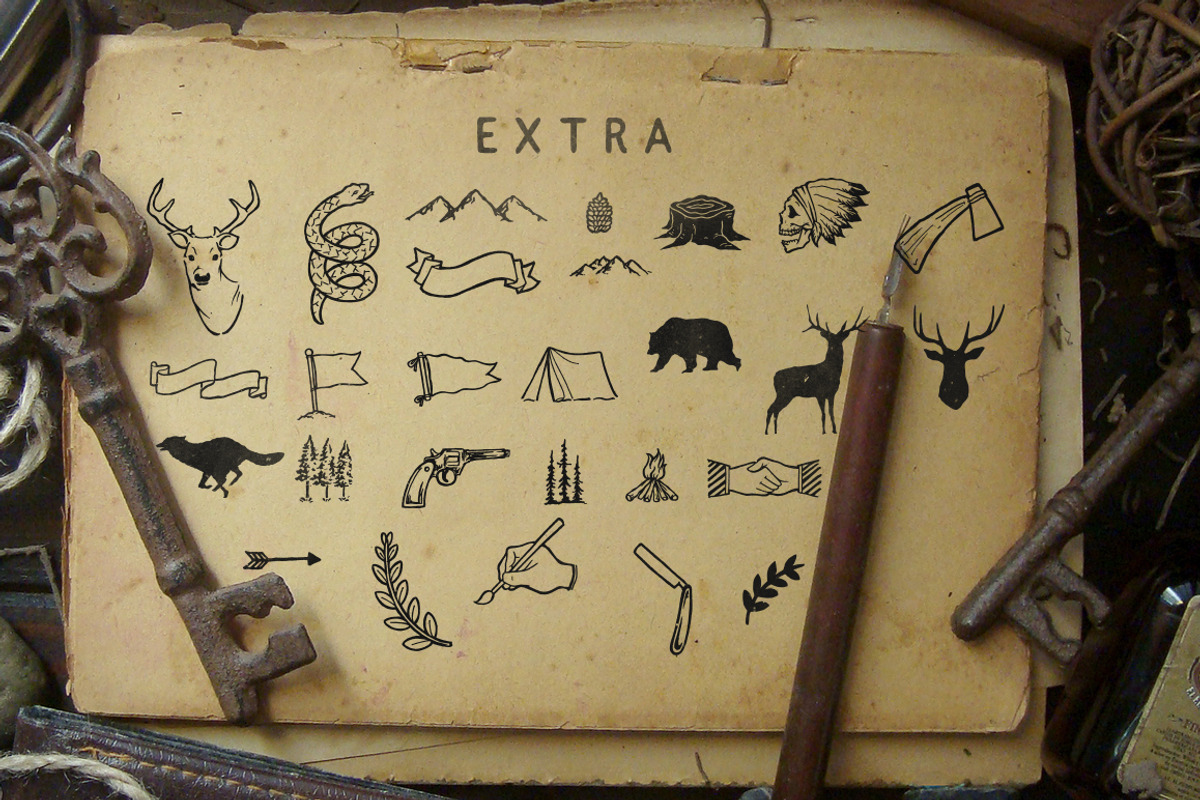
Himalaya Set Type
Himalaya set type is a vintage inspired font duo that includes one script and one sans serif font. The script and sans serif are both hand-drawn with a rough edge.
Himalaya set type comes with lower case y, g and tail alternates included in the font's glyphs. These alternates will give your designs an extra flair and uniqueness.
Himalaya set type is an experimental and versatile font. Suitable for digital lettering, prints, logo, poster, t-shirt, packaging and applicable for some type of graphic design.